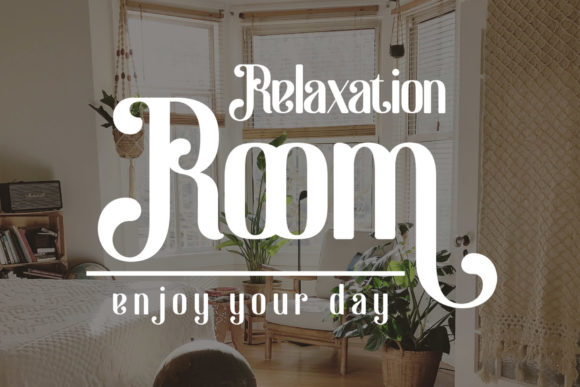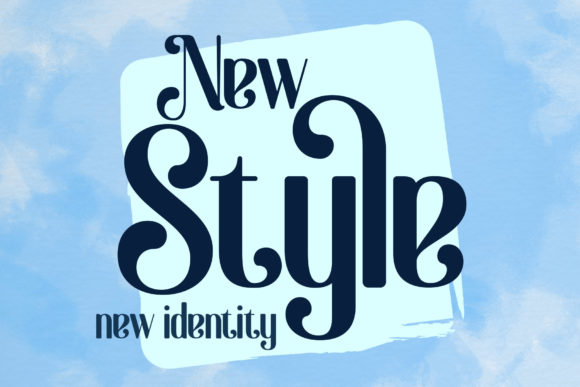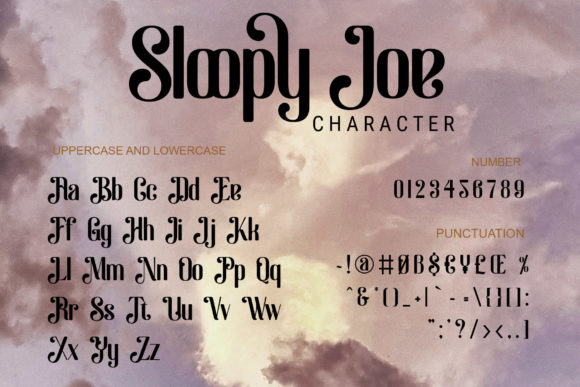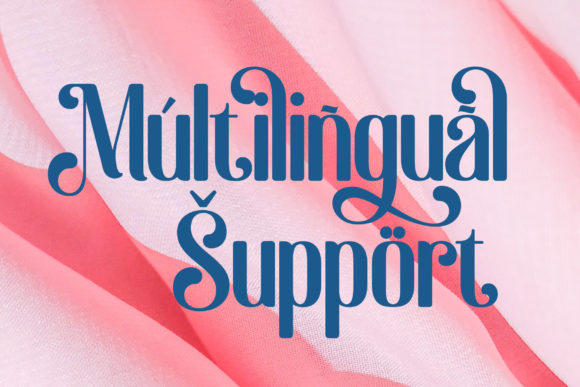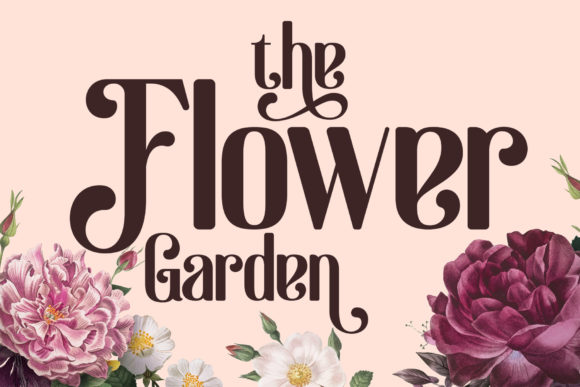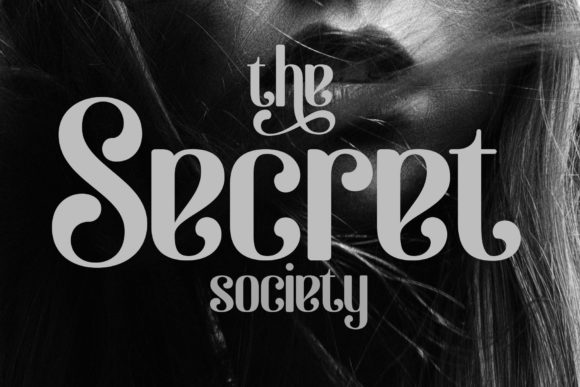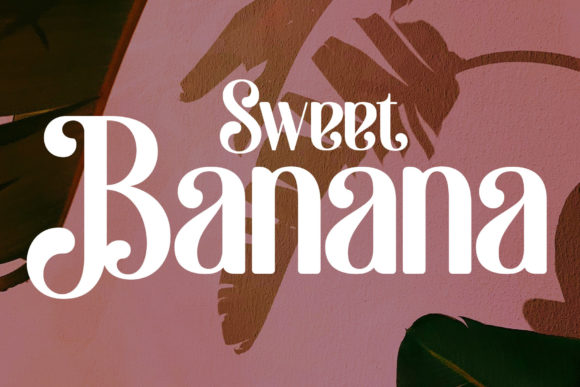
Sloopy Joe Font
Sloopy Joe is a slab serif font inspired by the logo of a toy’s card box and was crafted by hand to add a natural handmade feeling.
If you are looking for a new-style decorative font for your title or even branding and logotype, this font is a great choice for you!
Sloopy Joe will look great in logotype, labels, decorative lettering, playful design, product packaging, invitation titles, advertising, and others.